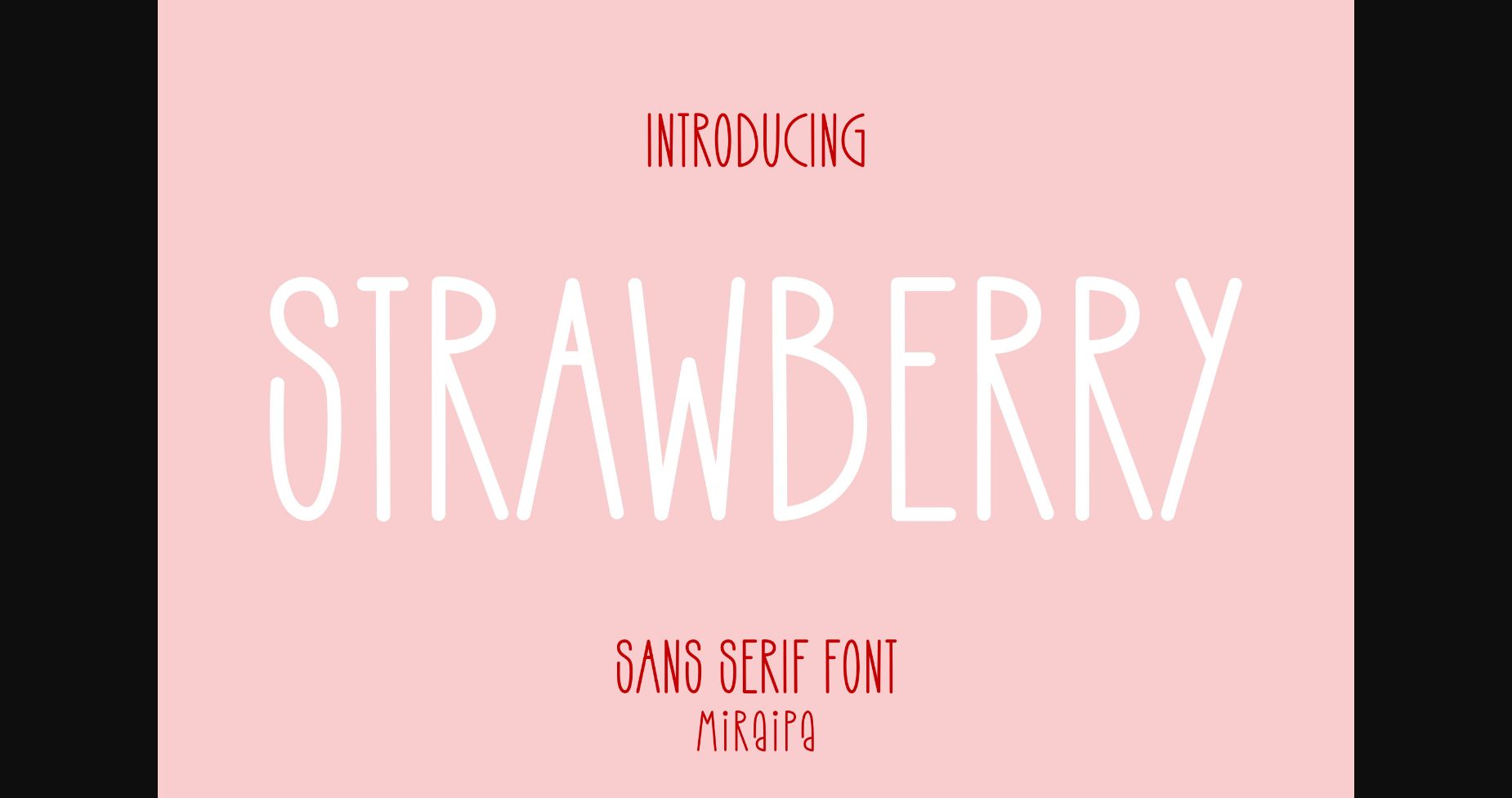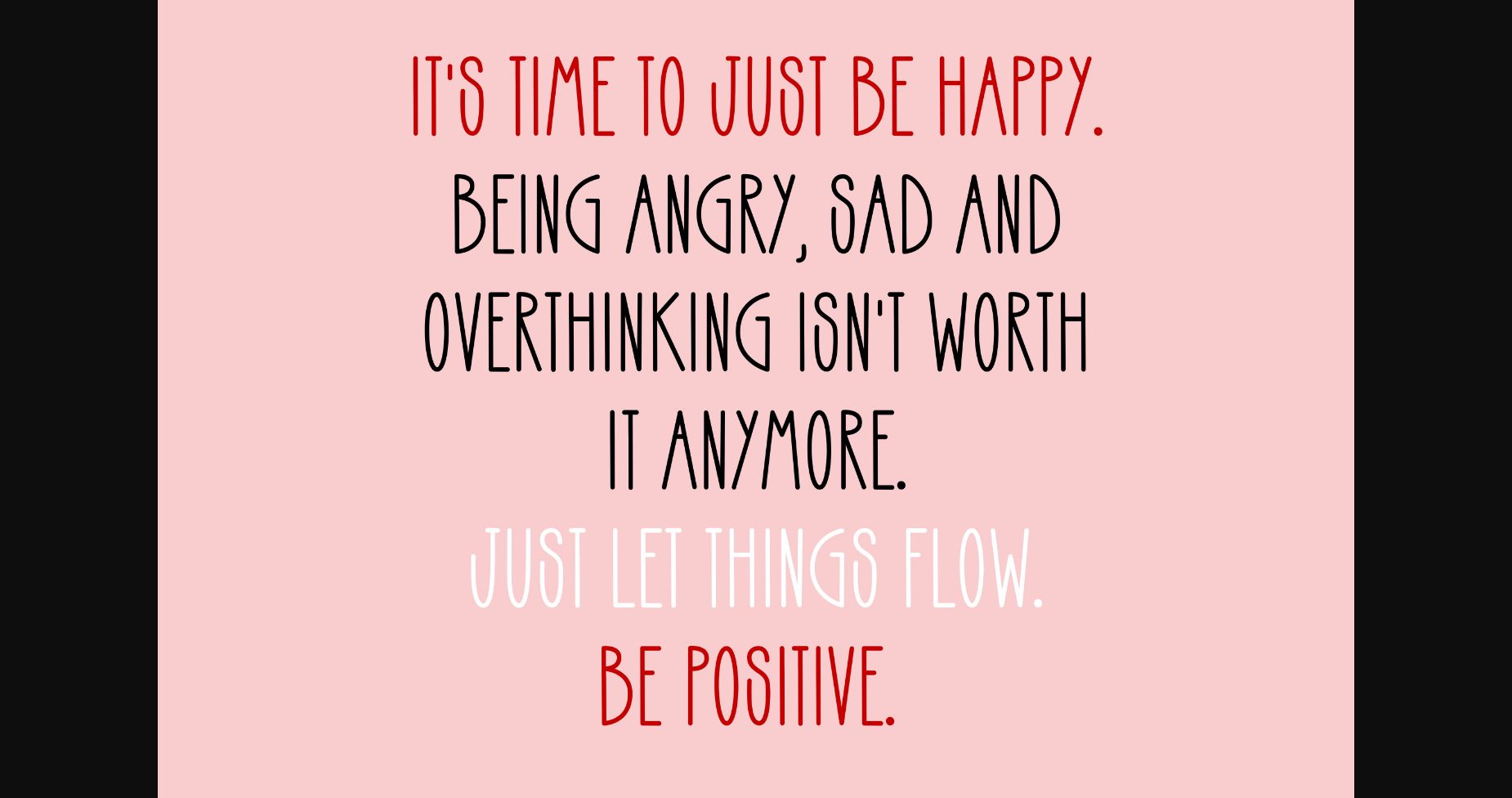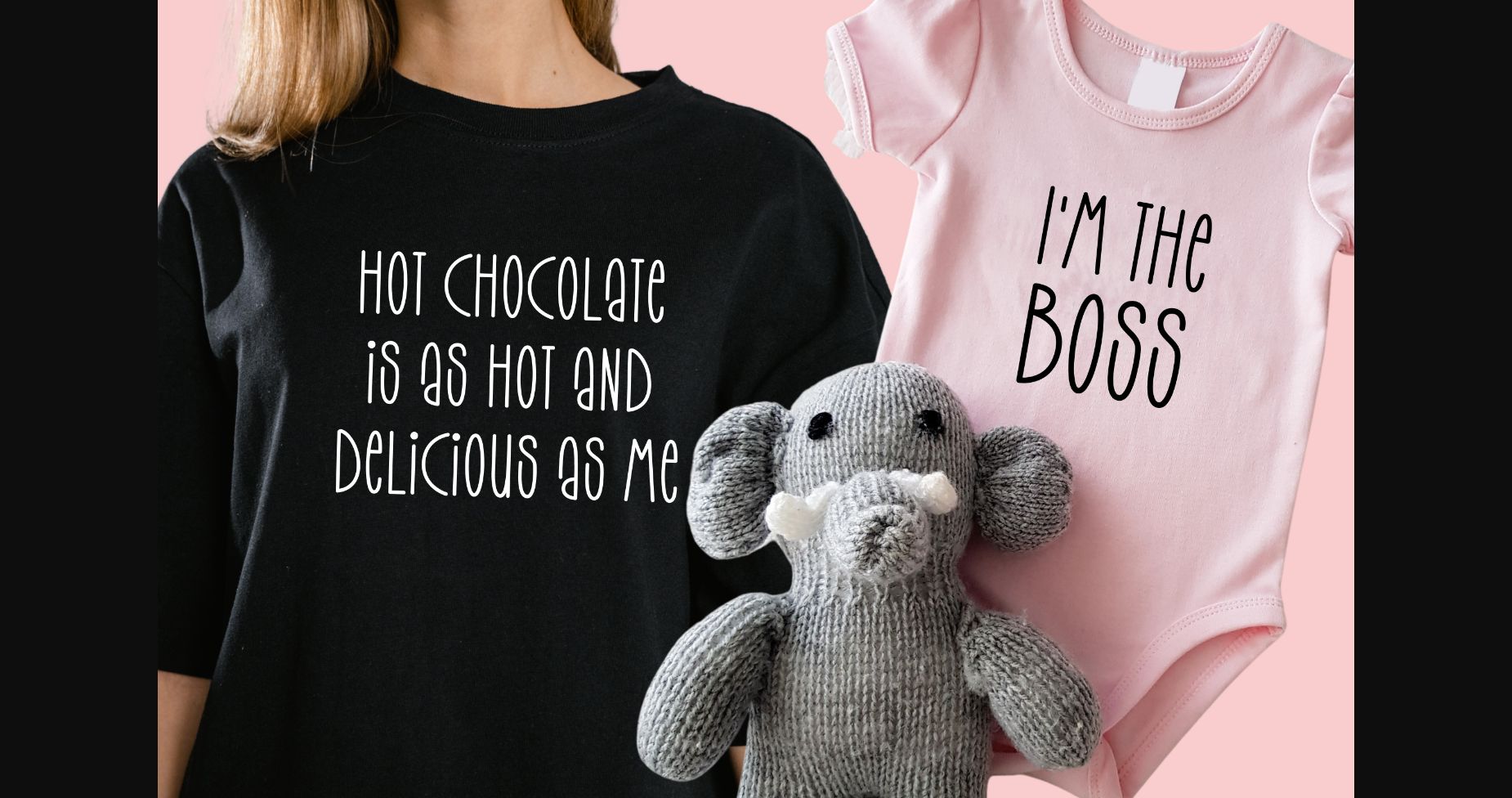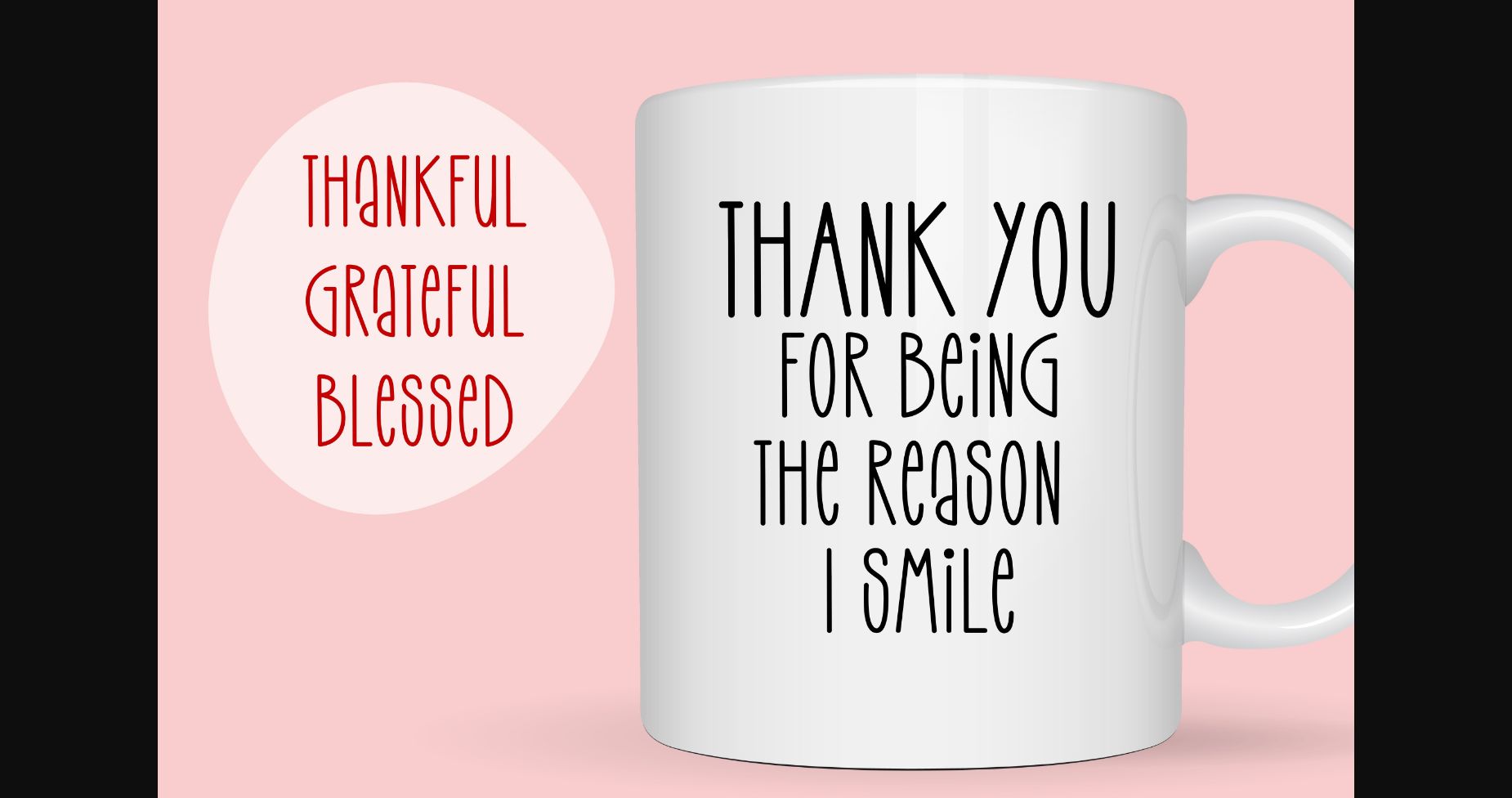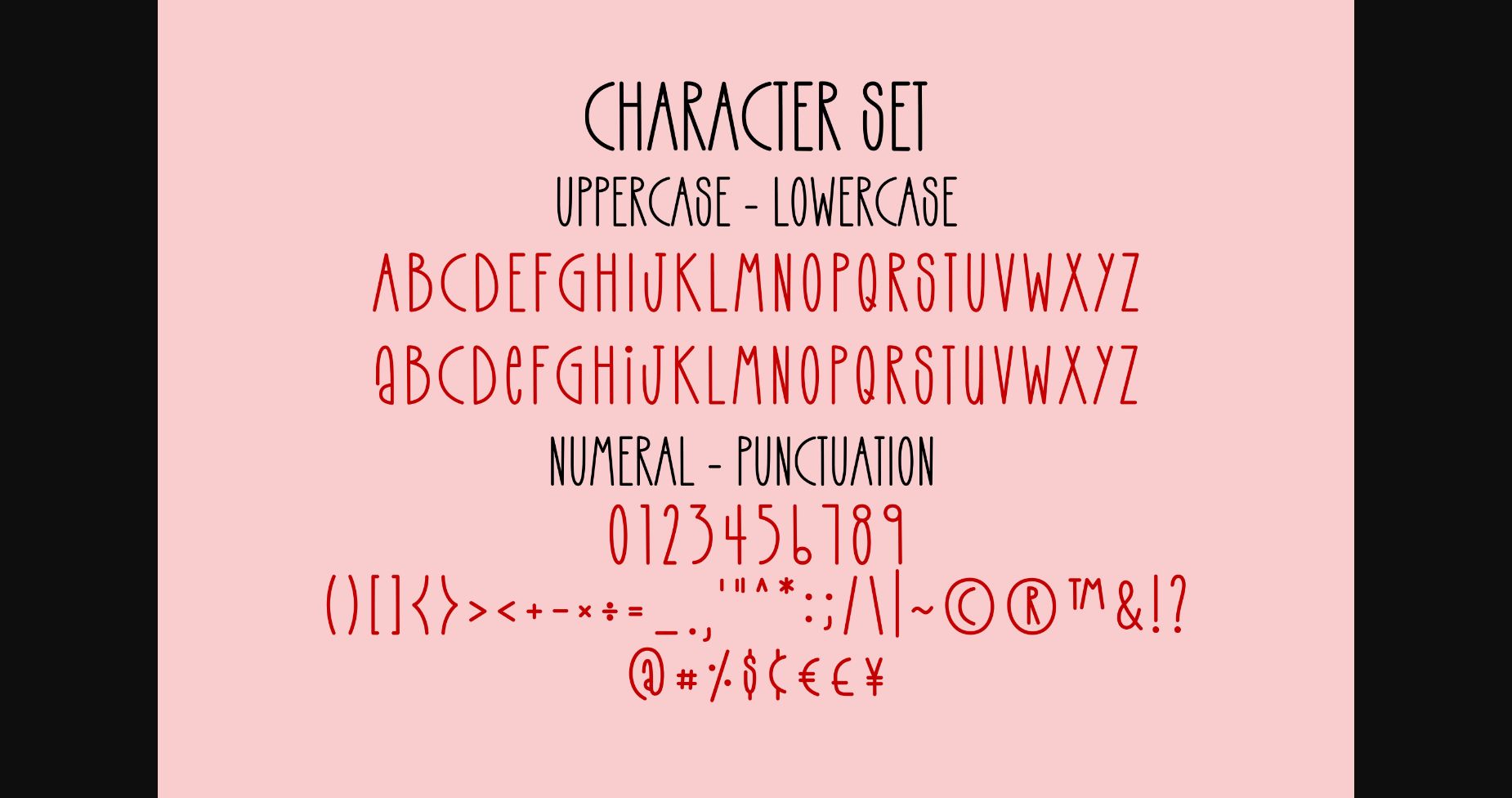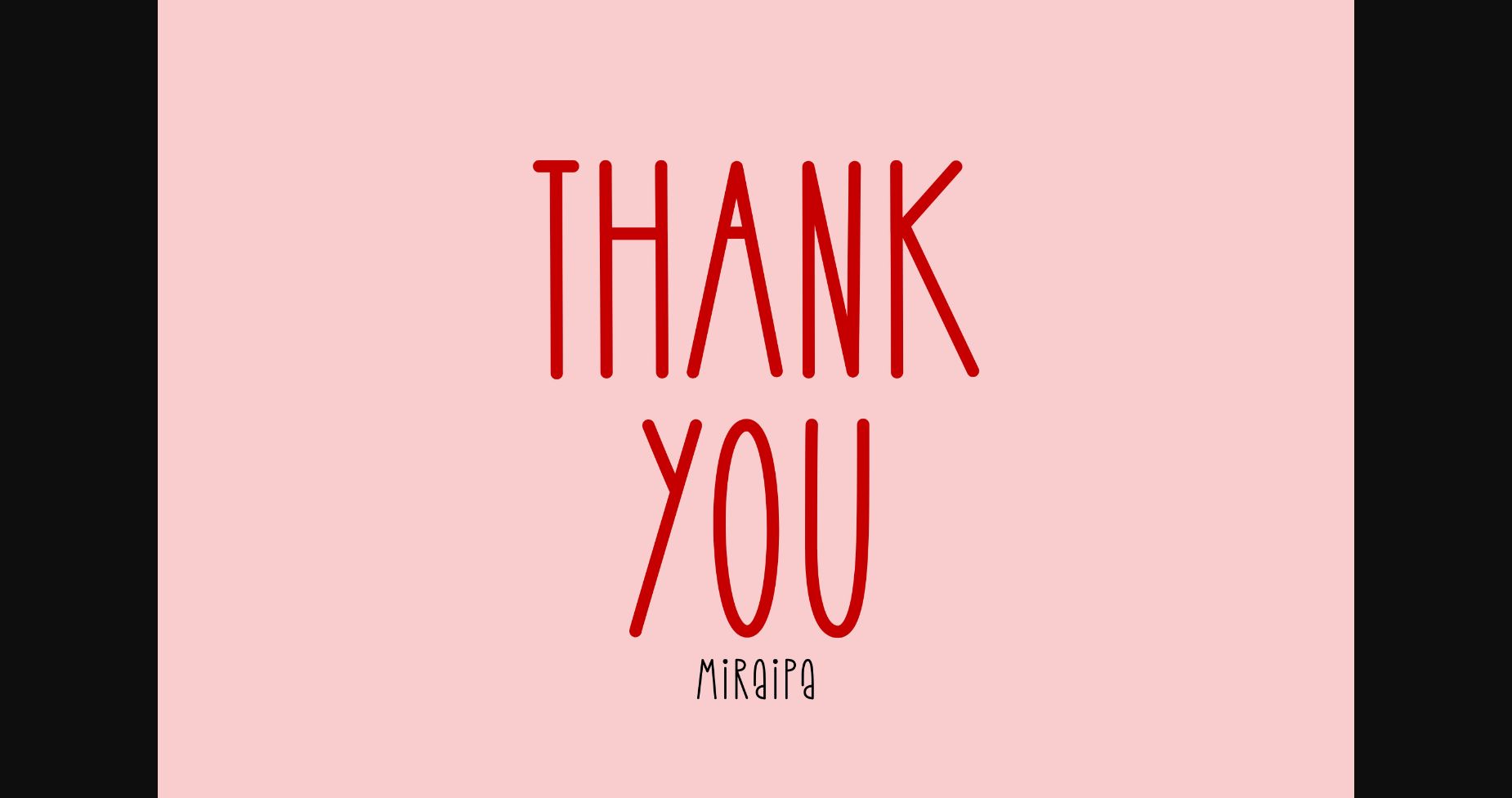
Strawberry Font
About Strawberry Font
Strawberry is designed in a cute and playful sans serif font style. It’s charming, whimsical, and also minimalist. It would be awesome to your fun projects or diary planner. Let’s try it to your perfect projects such as Easter, back to school, wedding, party decoration, invitations, Fall, Halloween, Christmas, posters, blogs, clothing, child-related designs, greeting cards, social media posts or anything that needs a friendly touch. Add it now to your fonts library, and it will bring any of your DIY projects to life.